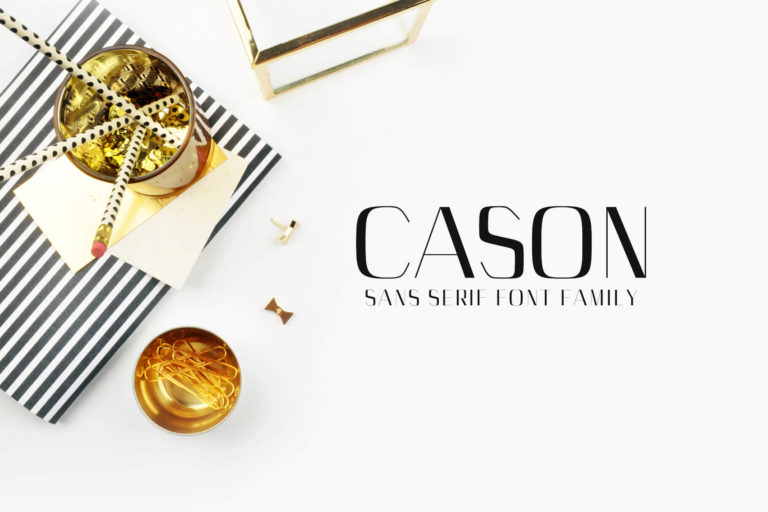
- Cason Sans Serif Typeface
Cason Regular
Cason Thin
Cason Light
Cason Bold
Cason ExtraBold
Cason Sans Serif Typeface is a set of 5 weights font family. It is good for making creative templates and stationary. Cason typeface suits best for modern / clean designs, logos, headlines, banners and templates etc.
It looks gorgeous in all caps with a wide-set spacing if you want to try a classy look, or beautiful on its own in capital and lowercase letters for something completely timeless.
- Regular, Thin, Light, Bold and Extra Bold Weights
Highlights
- Cason is a highly versatile Font Family Pack.
- Includes 5 weights
- The perfect choice for Modern, Fashion & Magazine Titles.
- Great for use on quotes, short phrases, magazines, logotypes and all sorts of advertising.
Cason Font Features:
- Uppercase Letters
- Lowercase Letters
- Non English Characters ( Latin Supplement + Latin Extended A)
- !”#$%&'()*+,-./:;=?@[]_{|} ¡¢«¬·»¿–—‘’“”†‡•…‰‹›⁄€−∕∙ꜰꜱ
- ÀÁÂÃÄÅÇÈÉÊËÌÍÎÏÑÒÓÔÕÖØÙÚÛÜÝÞ
- àáâãäåçèéêëìíîïñòóôõöøùúûüýþÿ
- ĀāȦĂ㥹ĆćĈĊċČčĎďĐđĒēĔĕĖėĘęĚěĜĞğĠġ
- ĤĨĩĪīĬĭİıĴĹĺĽľŁłŃńŇňŌōŎŏŔŕŘřŚśŜŞşŠš
- ŤťŨũŪūŬŭŮůŴẀẂẄẼỲŶŸŹźŻżŽžǫ
- ɢɪɴʀʏʙʜʟᴀᴄᴅᴇᴊᴋᴍᴏᴘᴛᴜᴠᴡᴢ